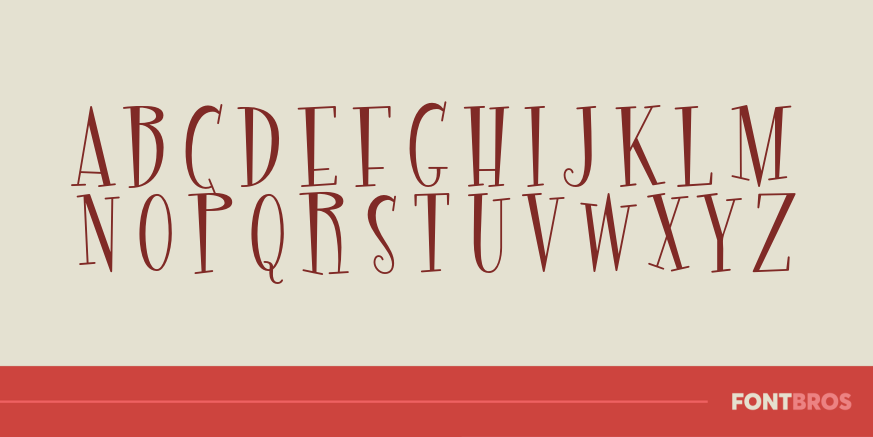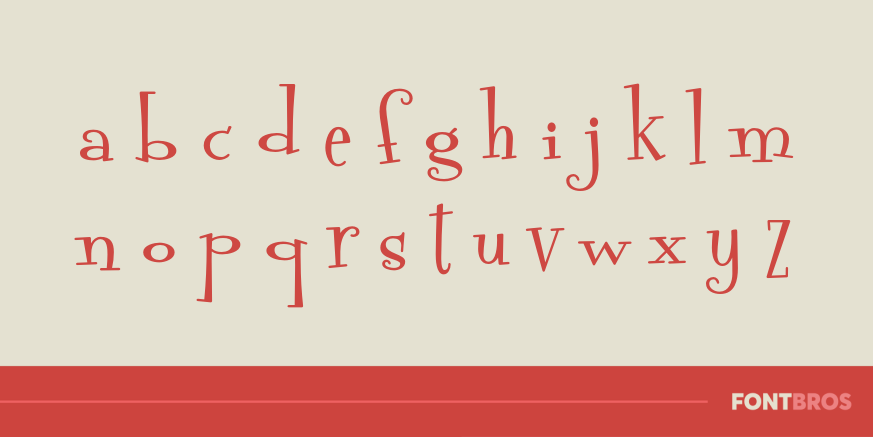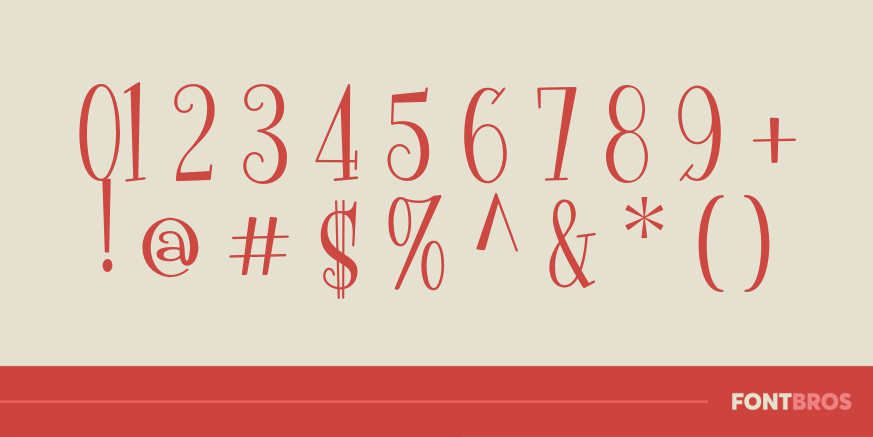
Fontdinerdotcom
Font Family by Font Diner
We liked the look of this one so much, we decided to name it after ourselves. This fun quirky retro font looks great almost anywhere, which is where you may use it!